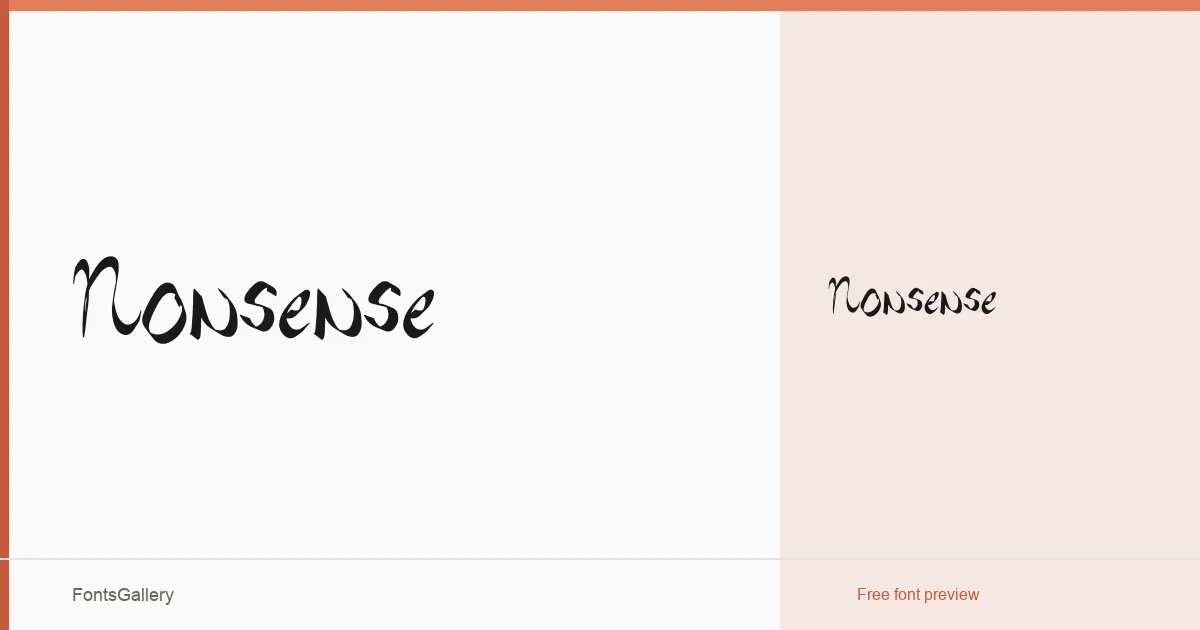
About Nonsense Font
Nonsense is a handwritten typeface from Arys Blythe that brings a spirit of playful charm and rustic character to any design. Its whimsical personality makes it instantly eye-catching and full of expressive energy. Whether used for bold statements or lighthearted creative projects, Nonsense delivers a distinctly human, hand-crafted feel.
As a handwritten font, Nonsense features organic, free-flowing letterforms that carry a rustic warmth and playful irregularity. Its whimsical character shines through in the natural variation of strokes, giving each letter a lively, hand-drawn quality. The overall aesthetic balances spontaneity with charm, making it feel both approachable and creatively spirited.
Nonsense is well suited for posters, branding projects, social media graphics, greeting cards, and T-shirt designs where a fun and expressive tone is desired. Its handwritten character adds personality to headlines, taglines, and decorative text across both print and digital formats. For pairing, it works beautifully alongside Aresink for a cohesive handcrafted look, or with Helvetica to create a compelling contrast between organic and clean, structured typography.